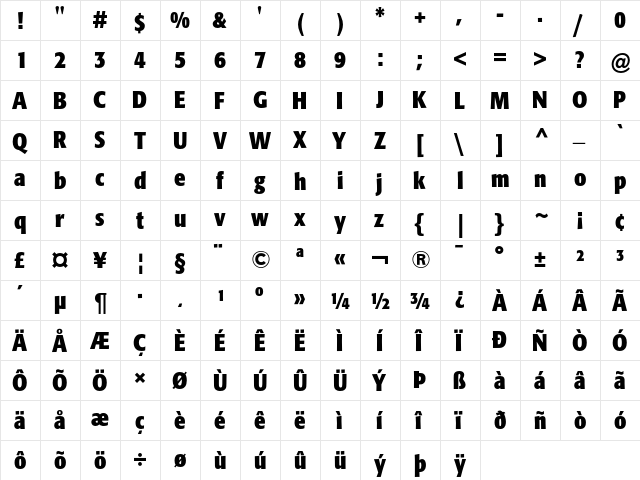
Formata Bold Condensed
Design Context for Formata Typeface
Formata offers clean, dependable letterforms without strong stylistic allegiance, making it a practical choice for designers who need flexibility. Its bold stroke weight gives it real presence on the page. Its narrow stance lets it pack a punch even in space-constrained designs.